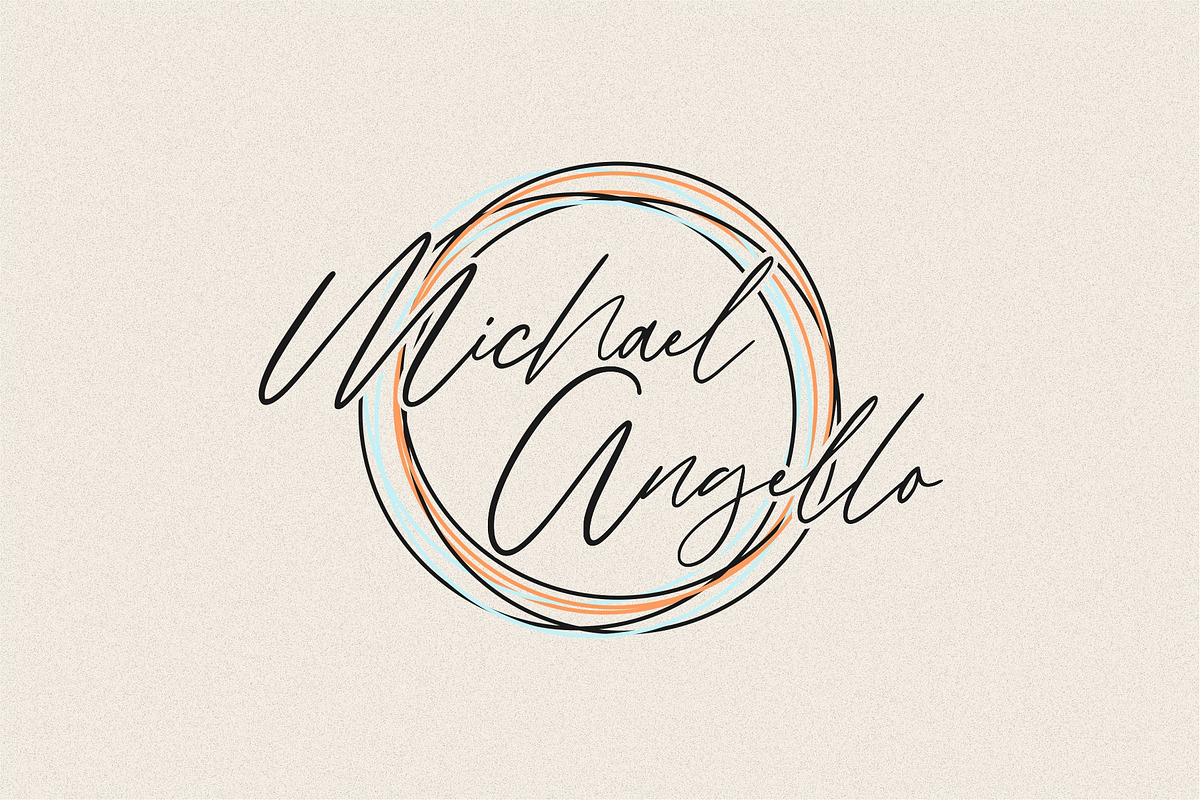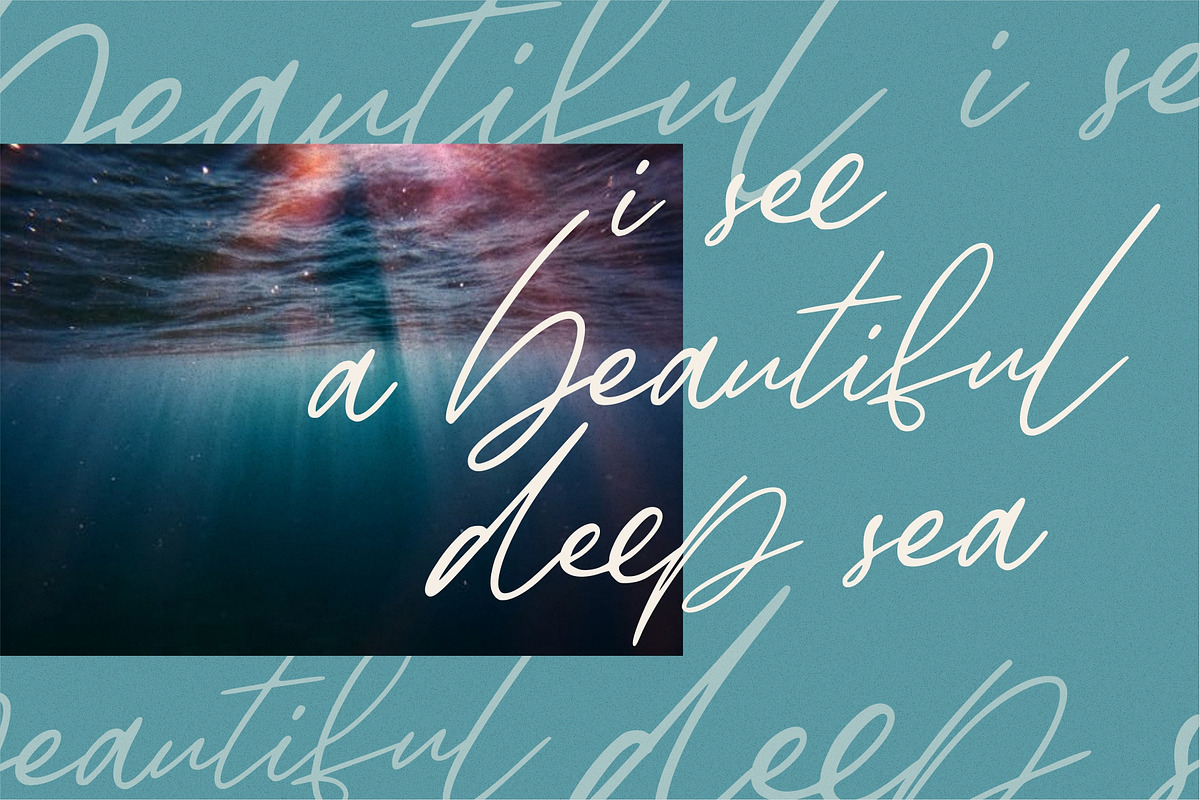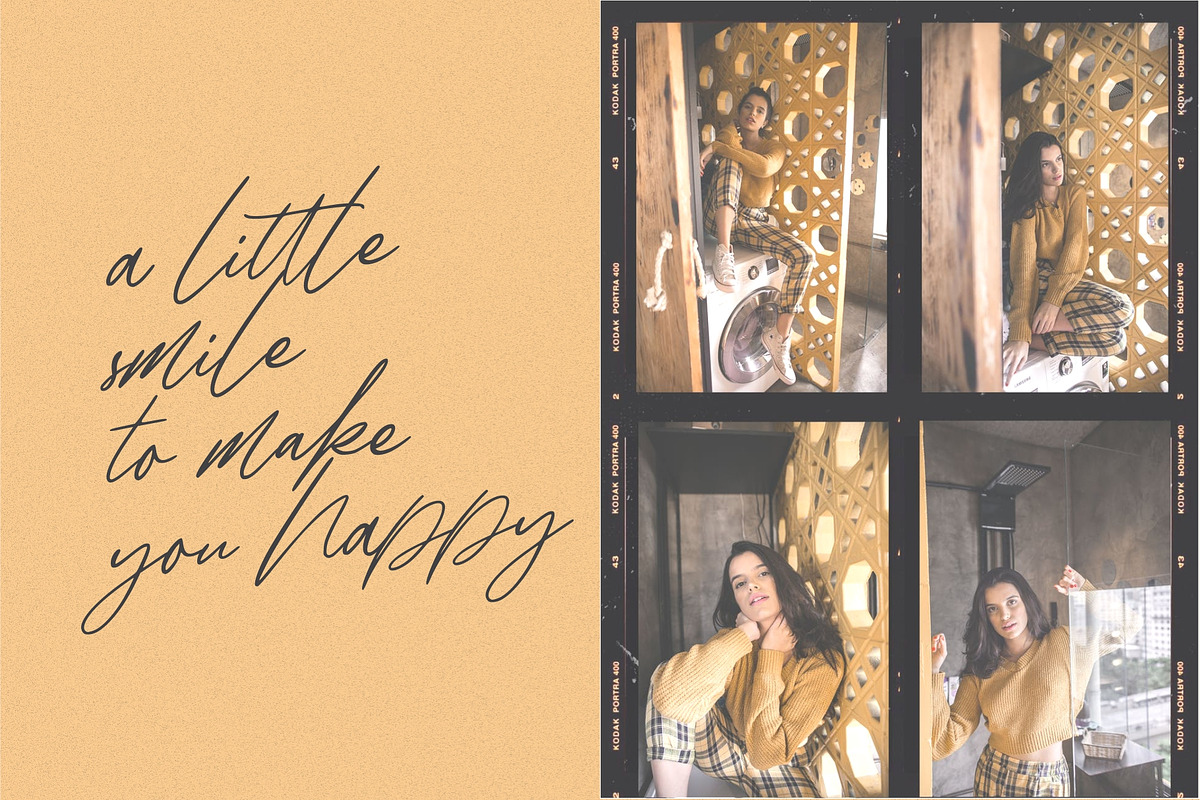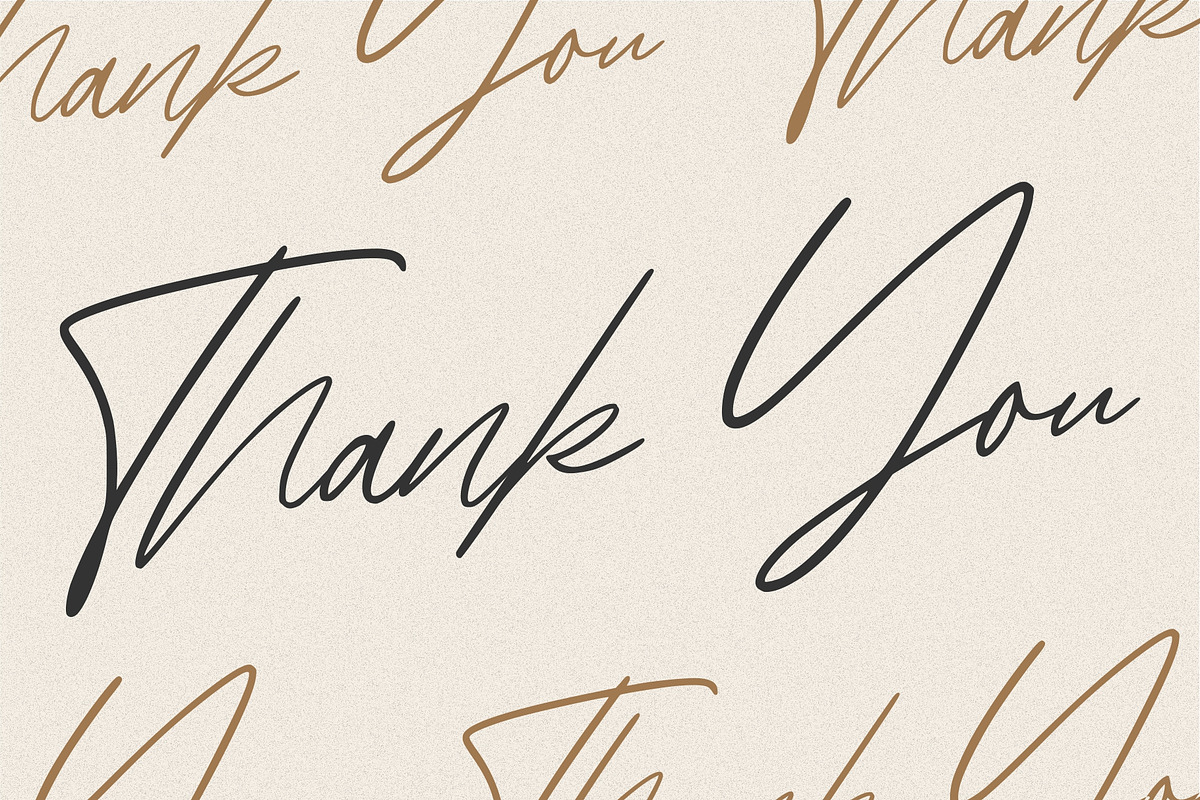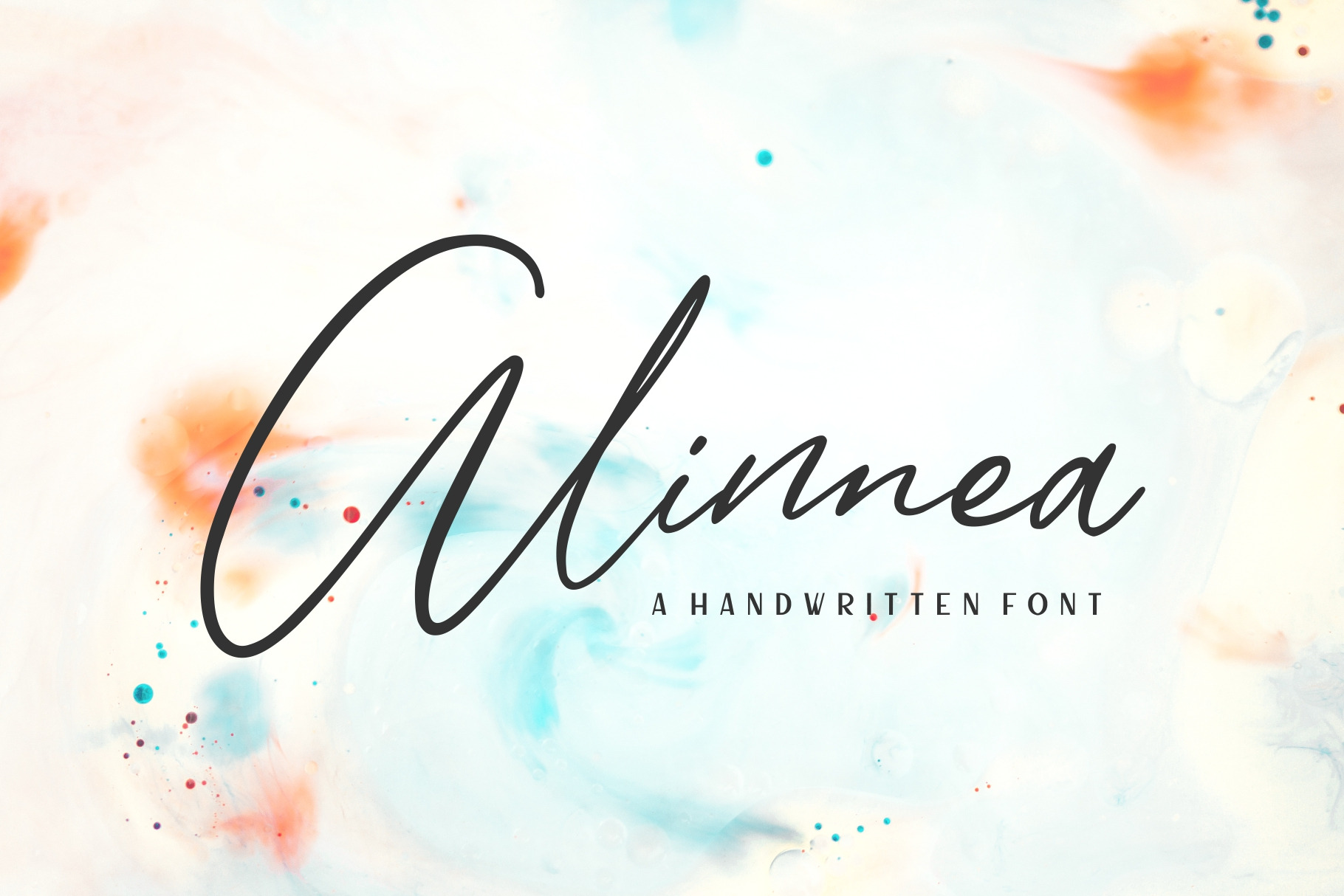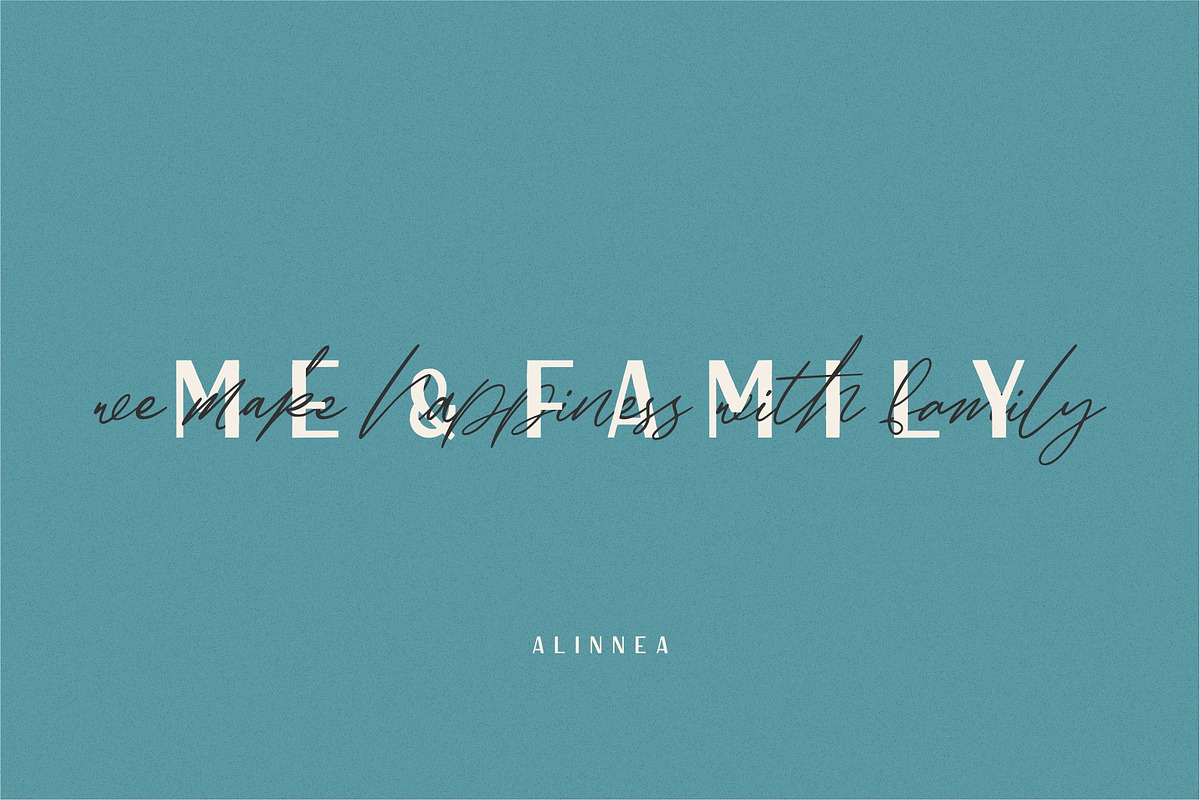
Alinnea - Handwritten Font
Introducing Alinnea - Handwritten Font
Alinnea is a natural signature font, this font Is perfect for logo, invitation, stationery, wedding designs, social media posts, advertisements, product packaging, product designs, label, photography, watermark, special events or anything.
Alinnea comes with full set of uppercase and lowercase letters, multilingual symbols, numerals, punctuation.